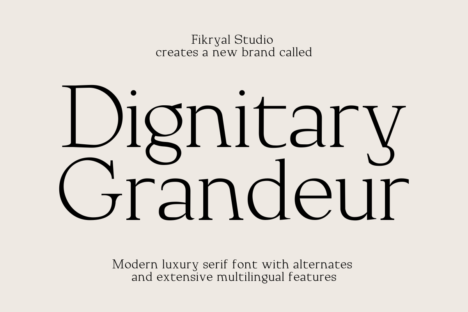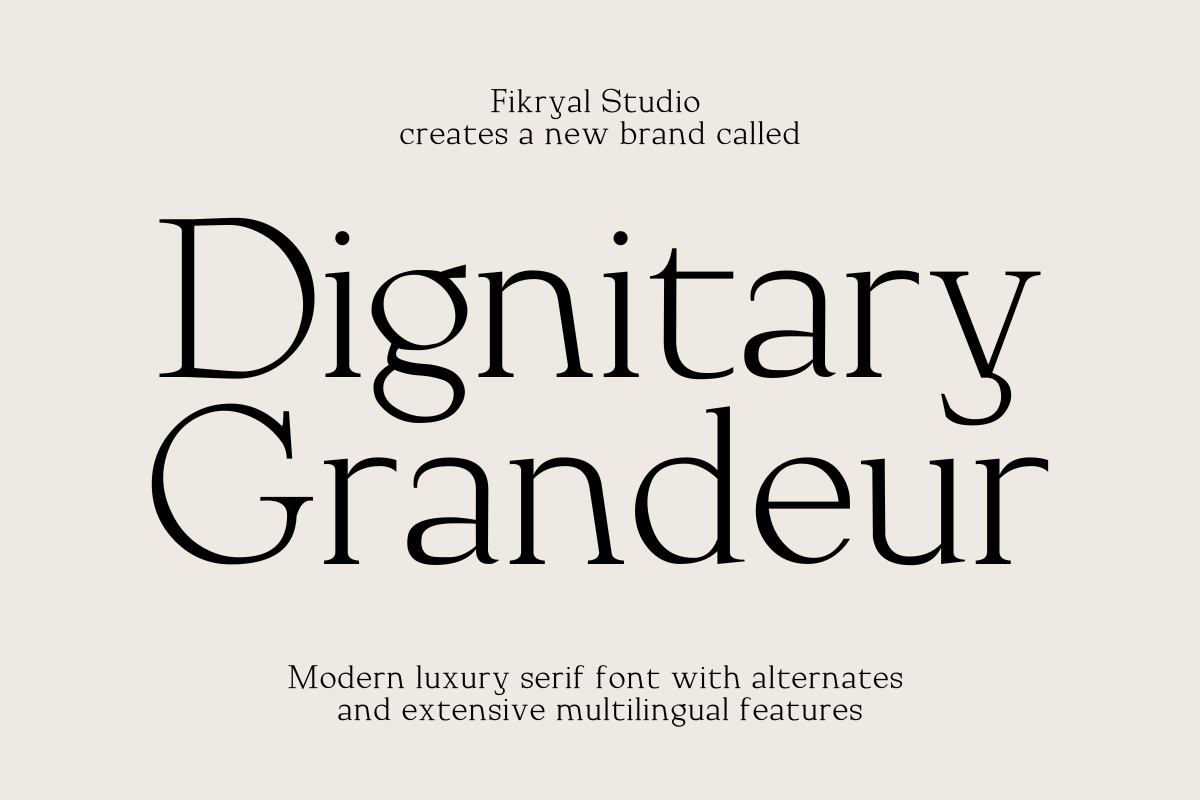
- Dignitary Grandeur – Modern Luxury Serif
Dignitary Grandeur is a modern serif font that exudes luxury and classic elegance. With three weight styles: Light, Regular, and Bold, this font offers flexibility for various design applications. It is perfect for branding, editorial work, formal invitations, or any project that requires a prestigious and upscale impression. Dignitary Grandeur also comes with alternates and extensive multilingual support, allowing users to create elegant and international designs.
Features: